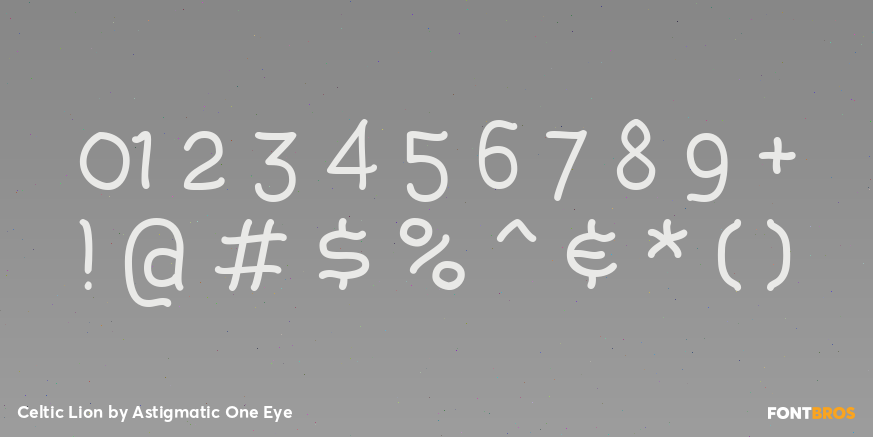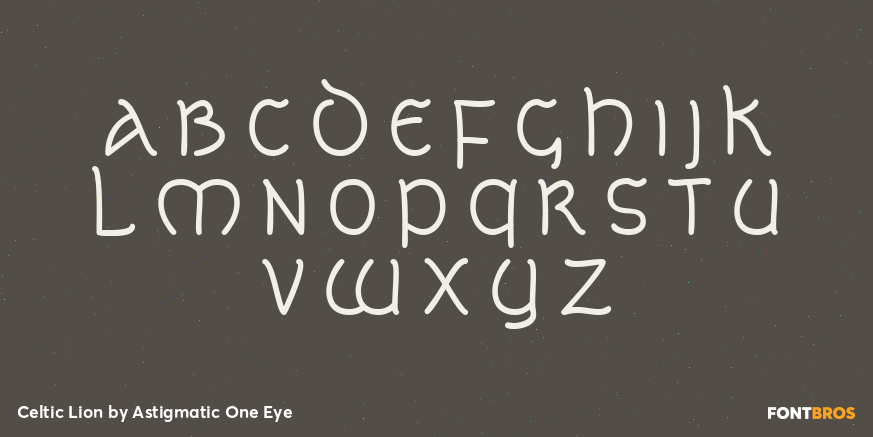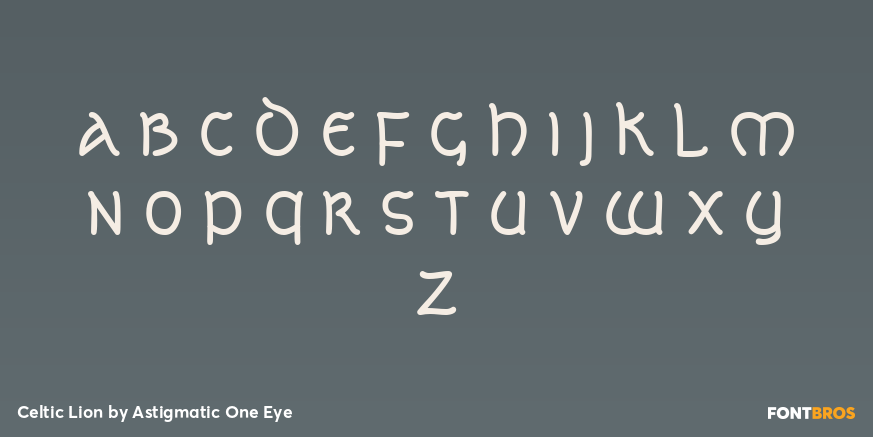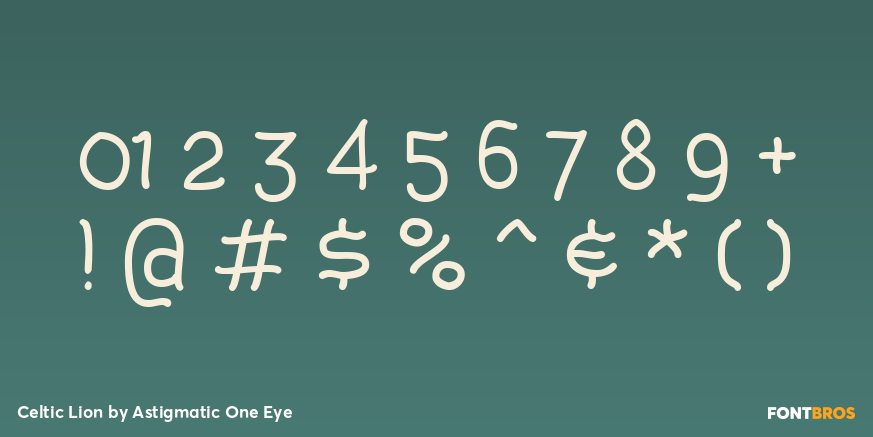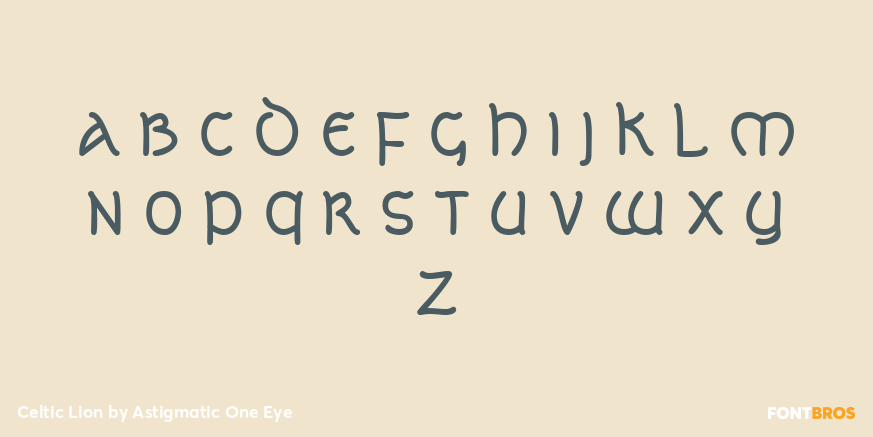
Celtic Lion
Font Family by Astigmatic One Eye
Buy NowCreated for "The Wonderlanders" comic book by Oktomica Comics as a dialogue typeface comes the Celtic Lion Family. A clean body text as well as headline typeface with the heart of a lion, ready to be a powerhouse for your designs.